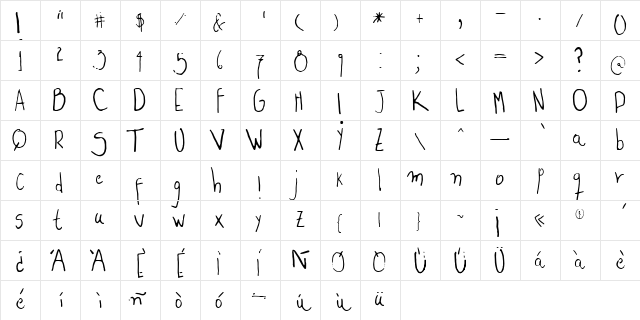
yexivela Regular Free Font
yexivela Regular
Design Context for yexivela
yexivela is a composed and adaptable typeface that performs quietly and consistently across a wide range of design contexts.